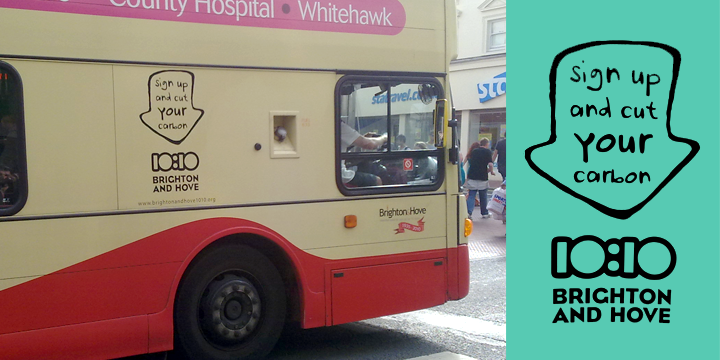
Ursula Handschrift Font is a charming and authentically handwritten typeface, perfectly suited for designs that aim to evoke a personal, warm, and inviting aesthetic. Imagine it gracing unique greeting cards, adding a friendly touch to artisanal product labels, or creating heartfelt headlines for personal blogs and creative journals. Its natural, free-flowing strokes and delightful imperfections also make it an excellent choice for crafting personalized stationery, designing engaging social media graphics, and developing endearing branding for small businesses like bakeries or craft stores. Whether you're aiming for a cozy, intimate, or genuinely handcrafted look, Ursula Handschrift Font delivers an undeniable sense of warmth and genuine personality.
What makes Ursula Handschrift Font truly exciting is its ability to infuse designs with an immediate sense of authenticity and human connection. It truly feels like it was written by hand, giving your text a unique, one-of-a-kind appearance that stands out from more rigid, machine-made fonts. This makes it incredibly effective for projects where you want to convey a personal message, a homemade feel, or a touch of artistic spontaneity. Its charming irregularities contribute to its appeal, making it feel less like a manufactured product and more like a carefully crafted piece of art. Ursula Handschrift Font offers a delightful blend of casual elegance and heartfelt sincerity, making it a fantastic choice for any design where you want to evoke a sense of warmth and individual expression.
The Ursula Handschrift Font family typically focuses on enhancing its distinctive, handwritten style, often featuring a core set of styles that highlight its unique characteristics. While it may not have the extensive weight range of a more formal text font, you can often find a standard Regular weight, sometimes complemented by a slightly bolder version for emphasis or a more delicate variant for lighter touches. Many versions also include charming ligatures or alternative characters that help to create a seamless, natural flow, mimicking genuine handwriting. These stylistic options allow designers to add even more personalization and depth to their projects. For anyone looking for Ursula Handschrift Font Free Download, exploring these delightful nuances will help you craft truly engaging and personal designs that resonate with your audience.